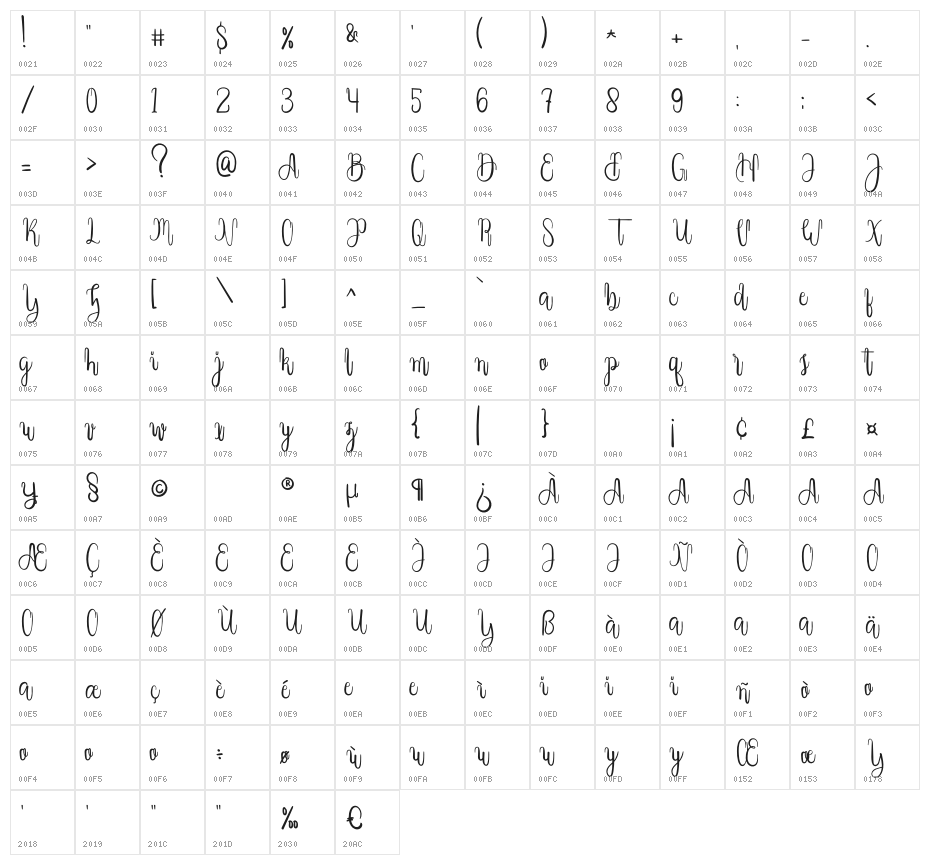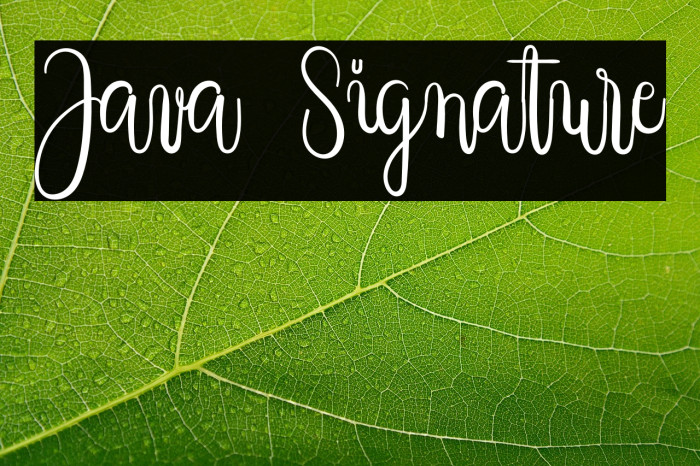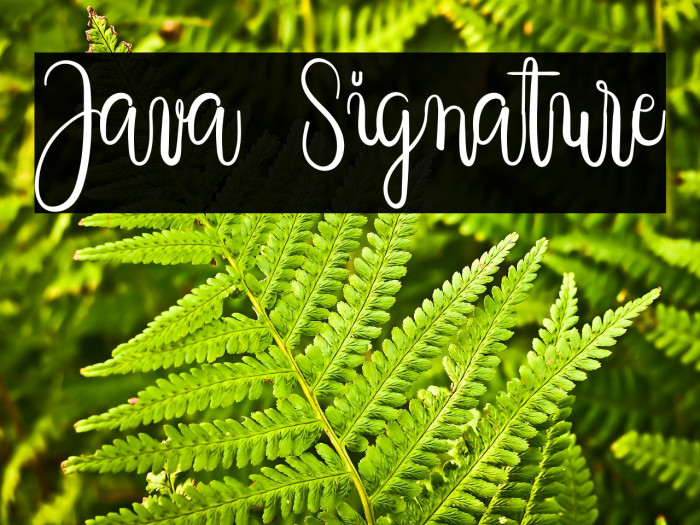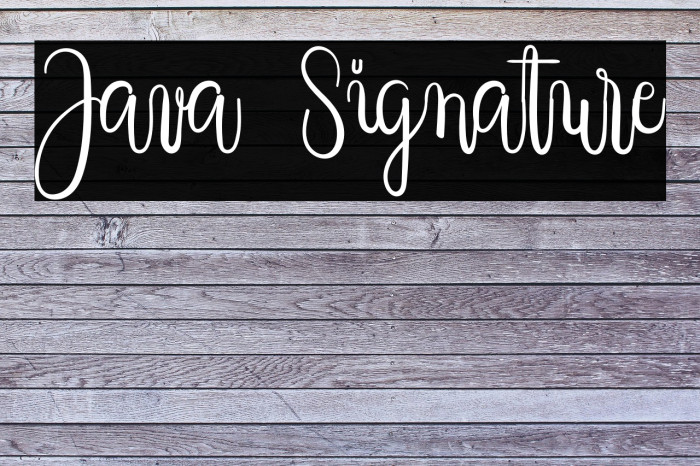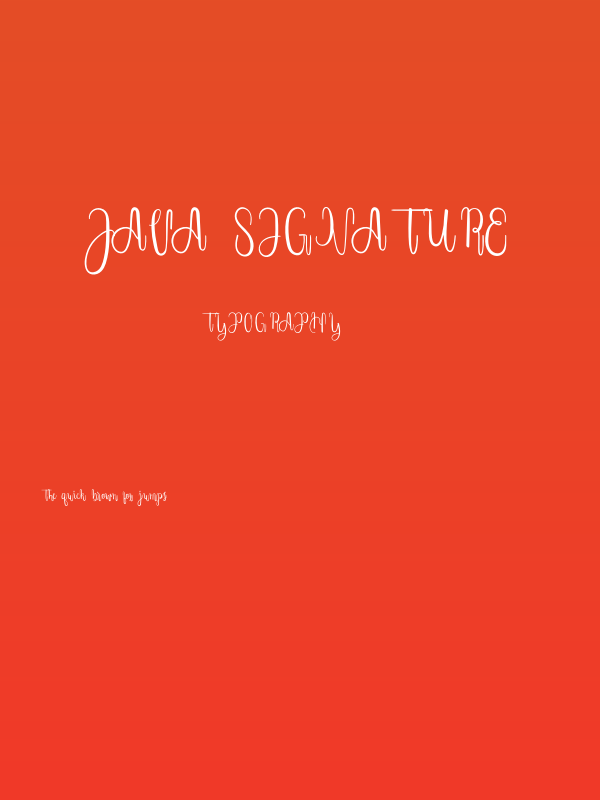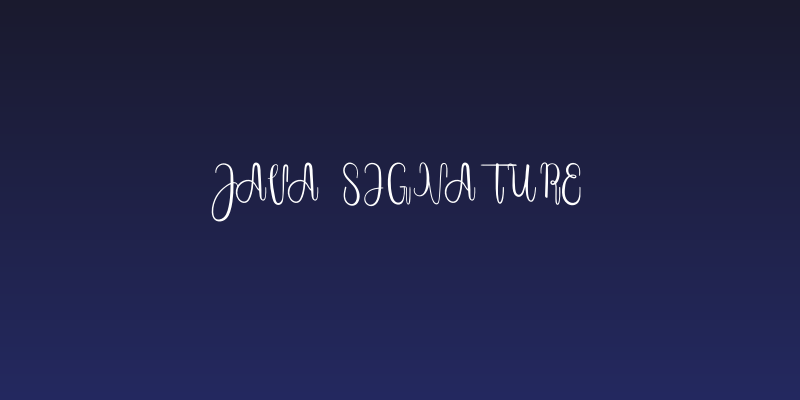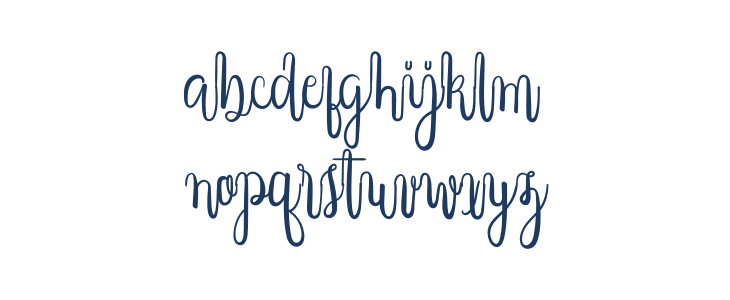
Java Signature Font
Java Signature Description
This font features a playful and elegant handwritten style, characterized by smooth, flowing lines and a casual yet sophisticated appearance. The uppercase letters are tall and slender, with a slight slant that adds a dynamic feel. The lowercase letters maintain a consistent height, with rounded forms and occasional loops that enhance the script-like quality. Numbers are clear and easy to read, maintaining the same fluidity as the letters. Special characters are creatively integrated, matching the overall aesthetic. This font exudes a sense of personal touch and creativity, making it suitable for projects that require a humanistic and approachable feel.
| Use Case | Logos, Invitations, Personal Branding |
| Proposed Projects | Ideal for wedding invitations, greeting cards, personal branding, and creative projects that require a personal touch. |